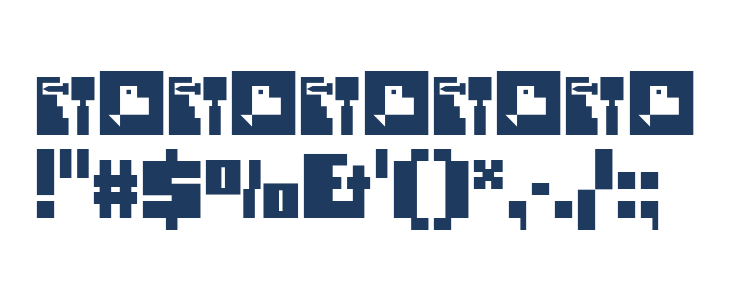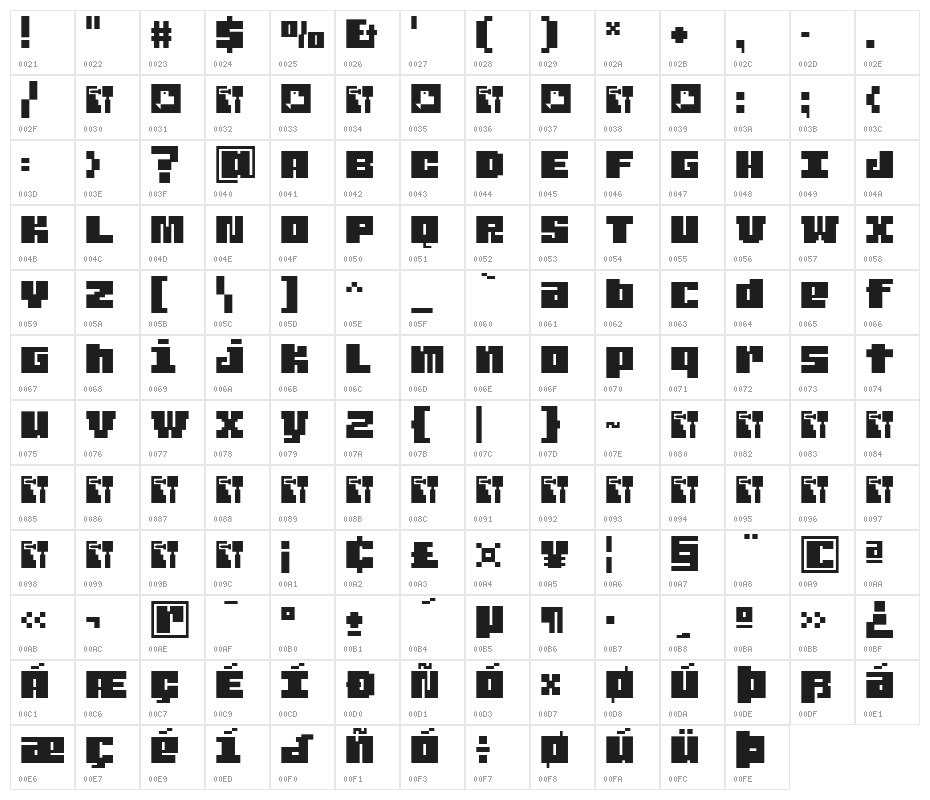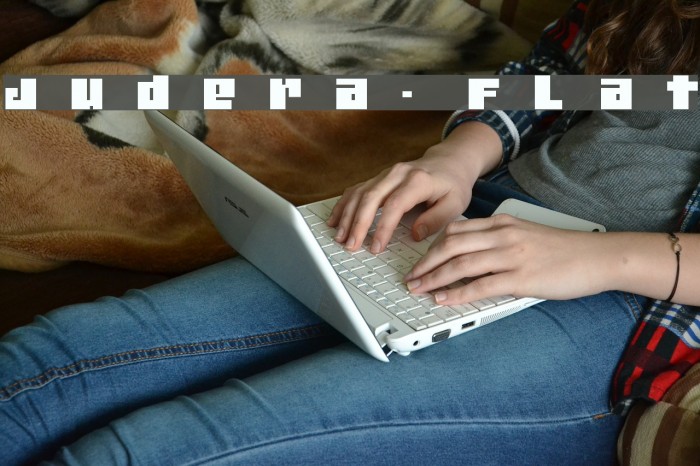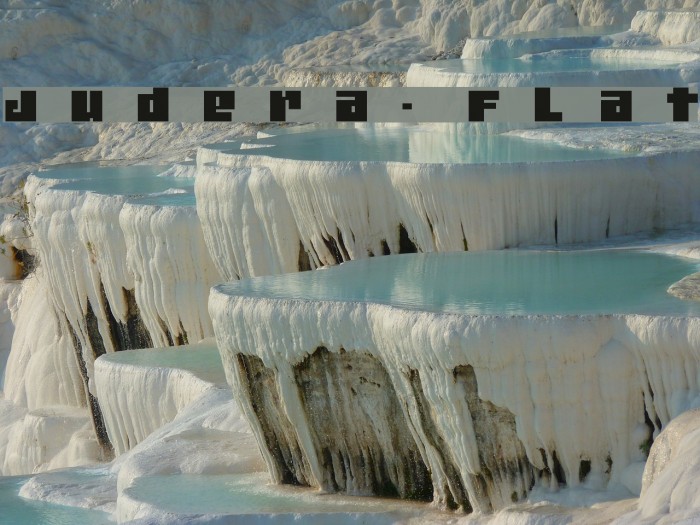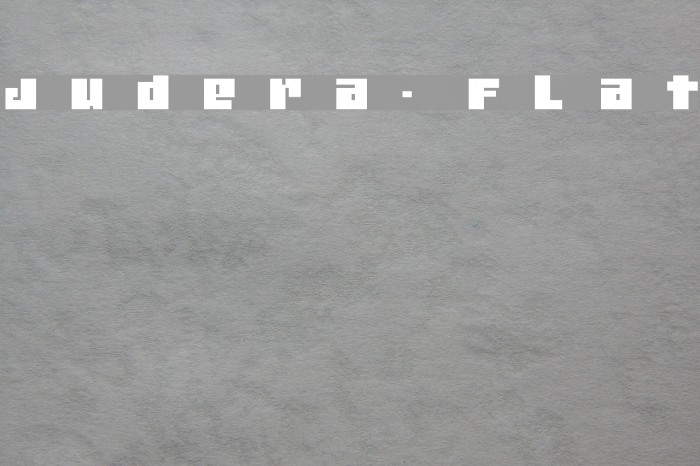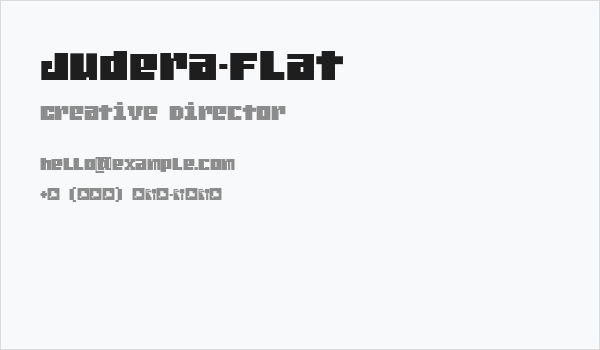
Judera-Flat Font
Judera-Flat Description
This font presents a bold, pixelated style reminiscent of early digital or arcade game aesthetics. The characters are uniformly blocky, with each letter and number maintaining a consistent width and height, giving it a monospaced appearance. The uppercase and lowercase letters are distinct yet maintain the same pixelated structure, ensuring readability while adhering to its retro design. The numbers and special characters follow the same design principles, making them easily recognizable. This font's unique style is ideal for projects that aim to evoke nostalgia or a digital theme.
| Use Case | Headlines, Logos, Digital Art |
| Proposed Projects | Ideal for video game design, retro-themed posters, digital art, and tech-related branding. |